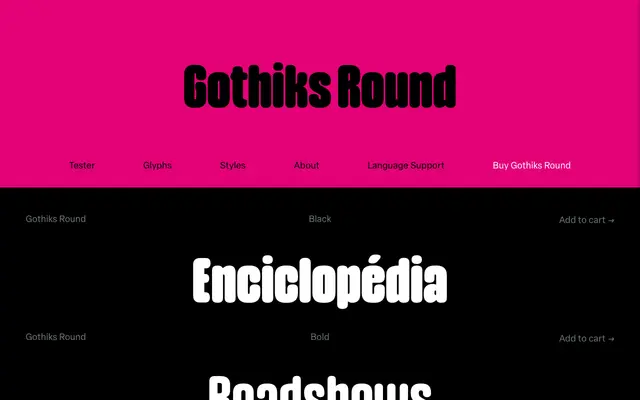
Gothiks Round
Blackletra · Daniel Sabino · 2018
A rounded companion to Daniel Sabino's Gothiks, offered in six weights from UltraLight to Black with softened terminals throughout.
Gothiks Round applies rounded terminals to the Gothiks geometric grotesque framework, softening the family's character across six weights. Designed by Daniel Sabino in 2018 and produced with Lucas Gini, it sits within a broader type system that includes condensed and compressed variants. Extensive Latin language support makes it well suited to multilingual branding and editorial work.
A rounded variant of the geometric grotesque Gothiks family, with softened terminals across a six-weight range, placing it firmly in the geometric sans category with a friendly, rounded character.